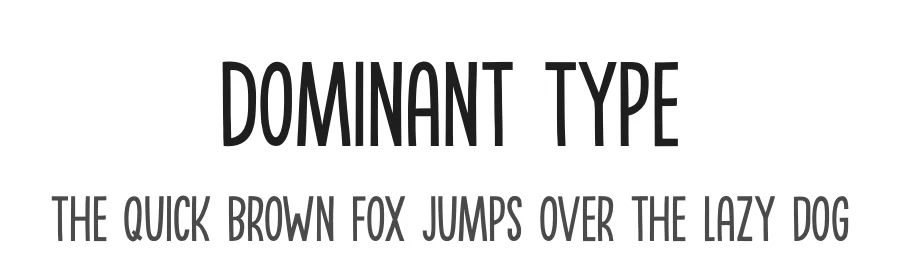
About Pinophyta Font
Pinophyta Font is a decorative font that shines as a display or heading face. Pair it with a clean sans-serif or serif font for body text β the contrast creates a clear hierarchy while the two styles stay balanced and easy to read.
Pinophyta Font
by David Cooper
Pinophyta Font is a decorative typeface by David Cooper, ideal for logos, invitations, branding, and creative projects.